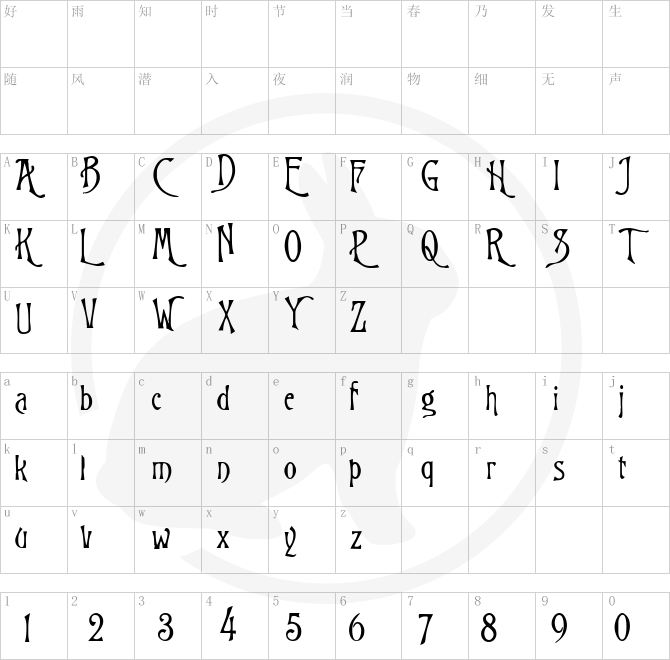
• Font Name:QK Eliza
• Full Name:QK Eliza
QK-Eliza.ttf is a very beautiful artistic font, QK-Eliza.ttf is widely used in the design and printing of various books and pictures,QK-Eliza.ttf has a strong visual impact,QK-Eliza.ttf is a commonly used font in newspapers, magazines and books, and is used in posters, e-commerce Poster design, store design, logo design, font design and other fields.QK-Eliza.